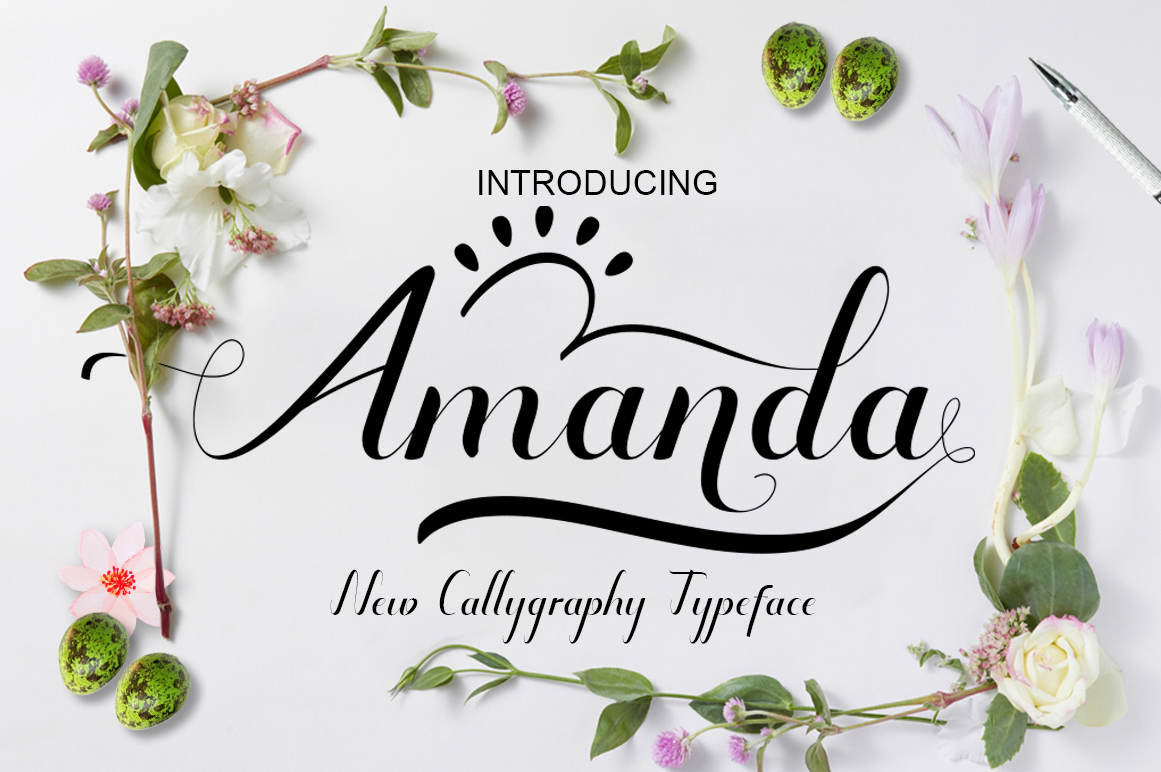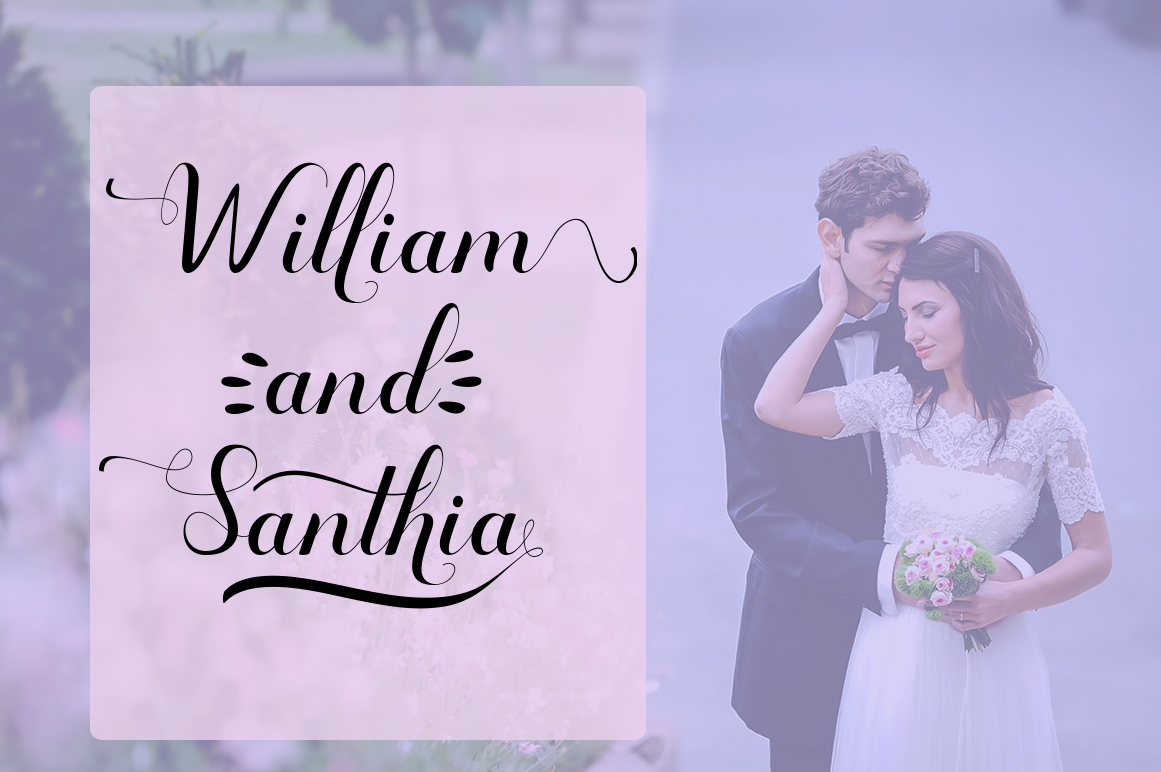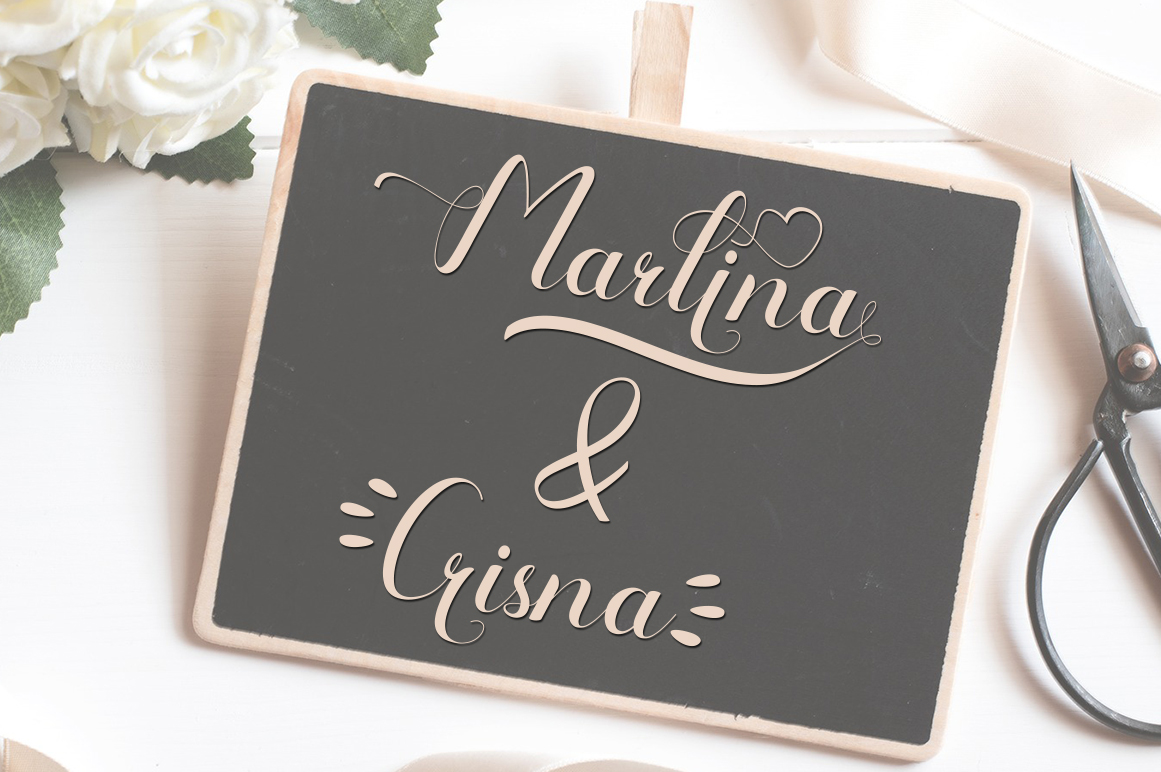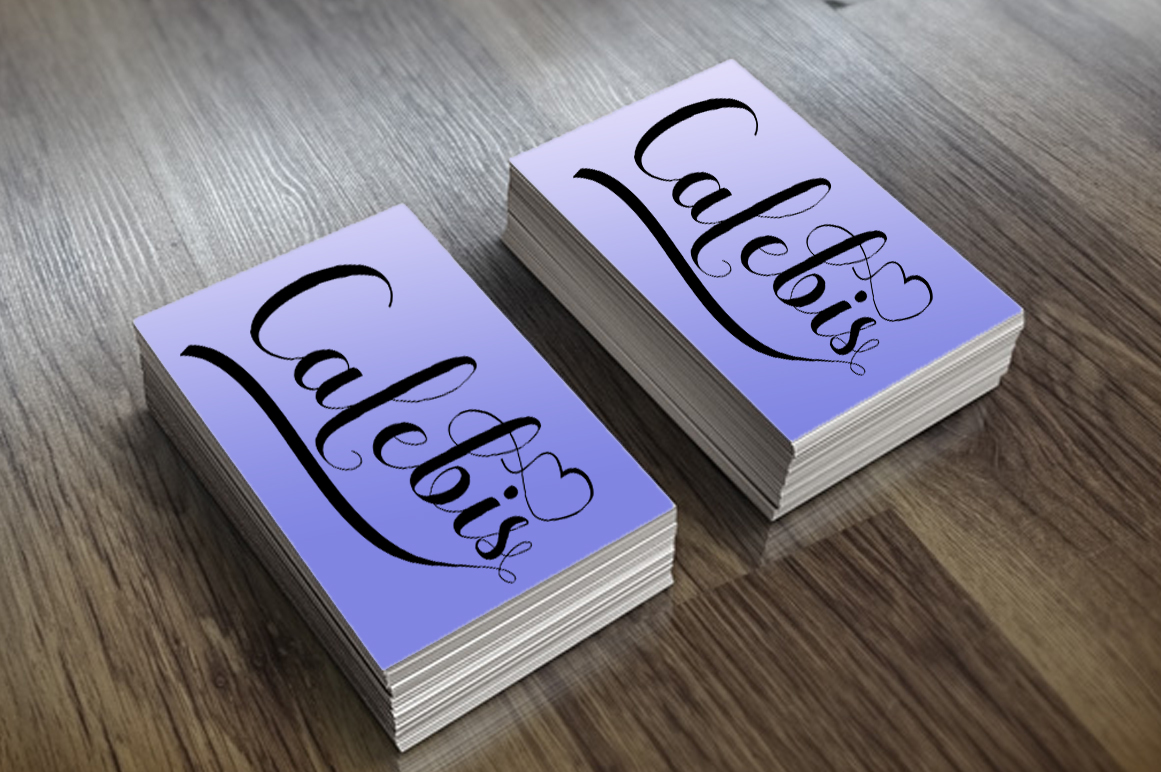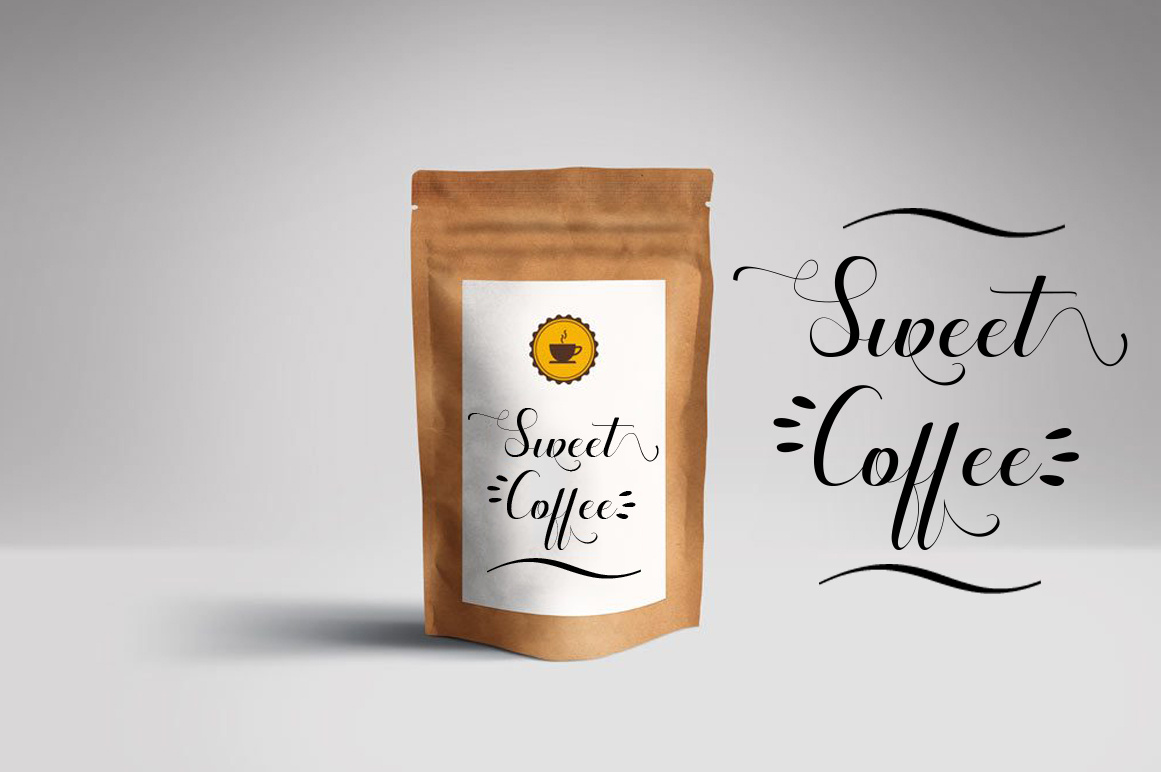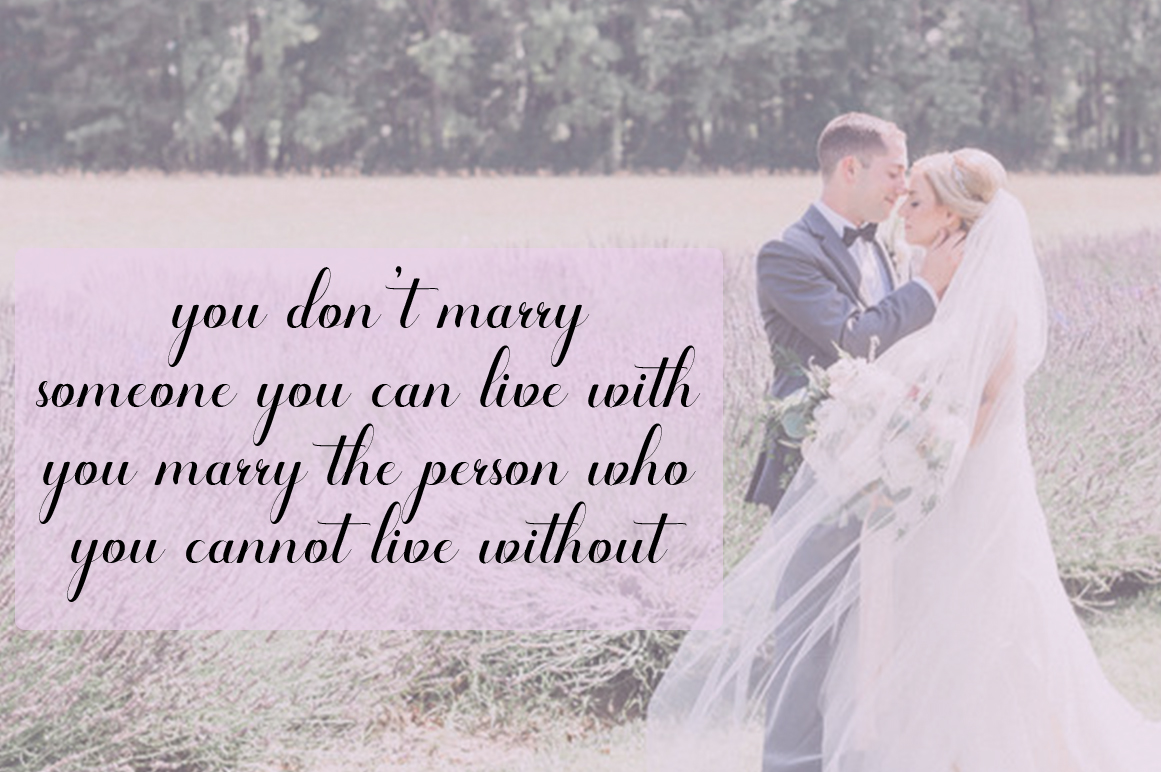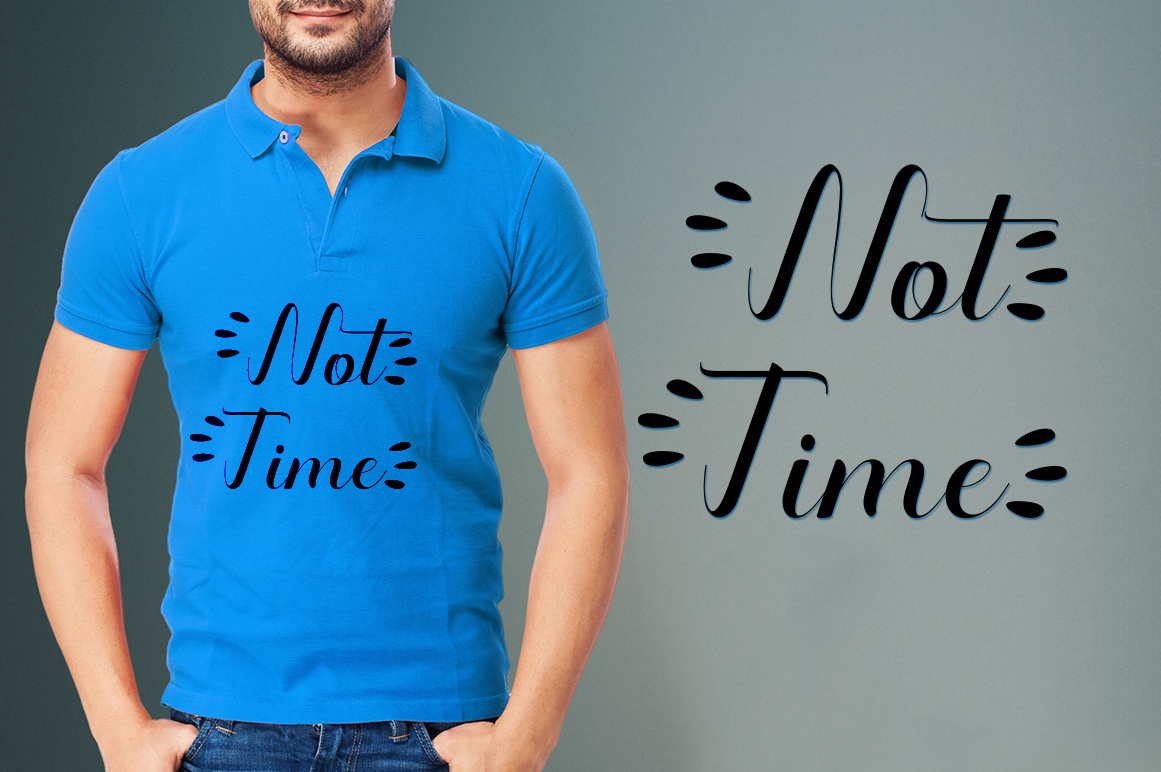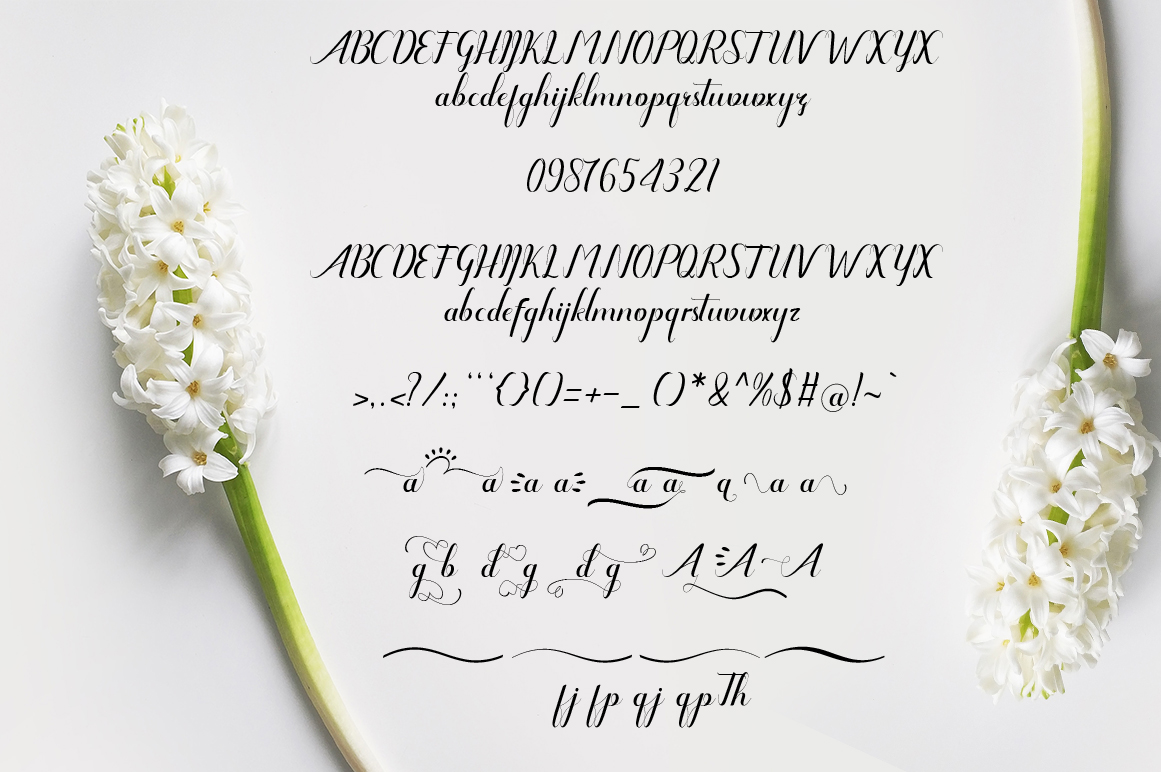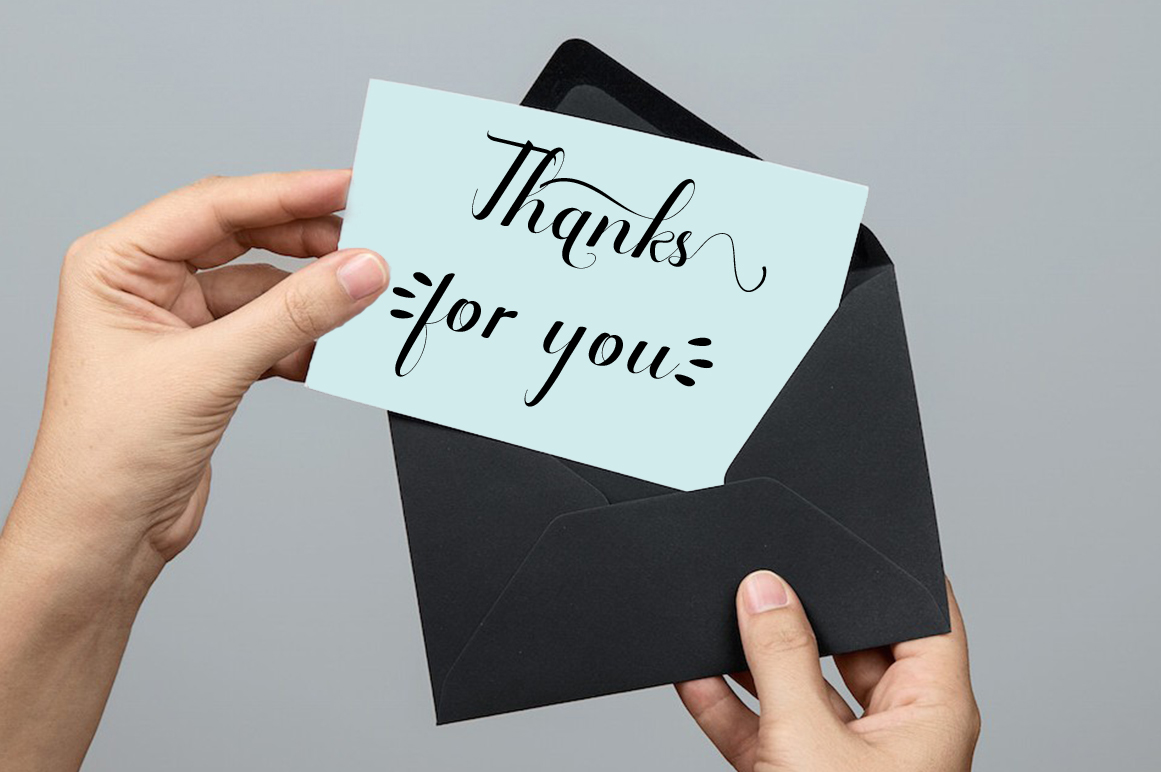
Amanda Font
About Amanda Font
The Amanda Script is a fresh, modern-styled calligraphic font. It feature decorative characters and has a dancing baseline, making the text flow on your screen.